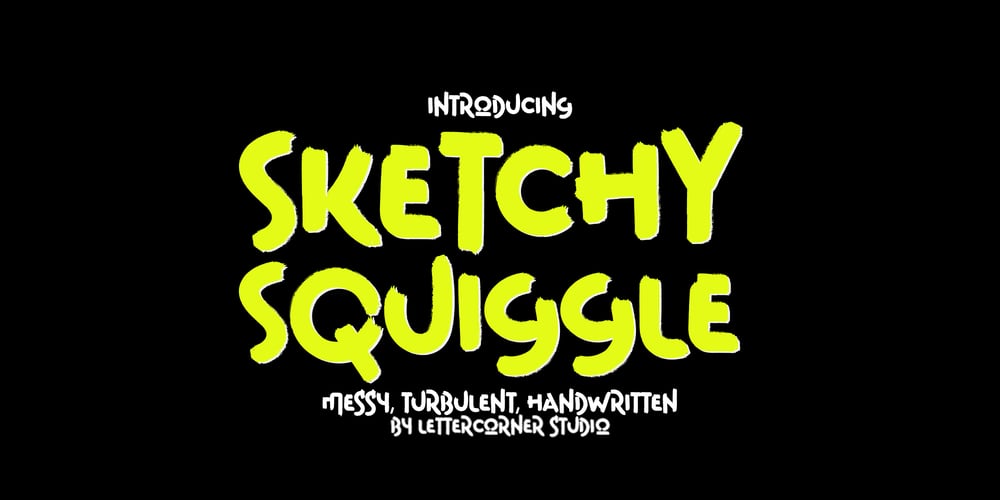
Sketchy Squiggle Font Family was designed by Muhammad Afif Ersya and published by Mevstory Studio. Sketchy Squiggle contains 1 styles and family package options. Introducing Sketchy Squiggle , handwriting font with all caps style. You can combine a unique uppercase and lowercase, so it looks like natural handwriting.And this font perfect for signature, logo, branding, poster, band, apparel, photography, title, social media post, ad banner, book cover, product packaging, handwritten quotes, and advertising. You can create more easily with many ligatures and make it as if you wrote it yourself.